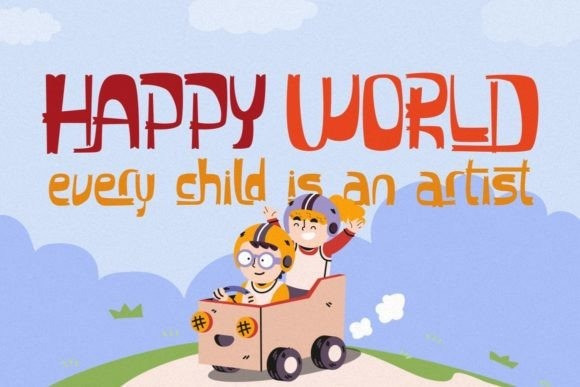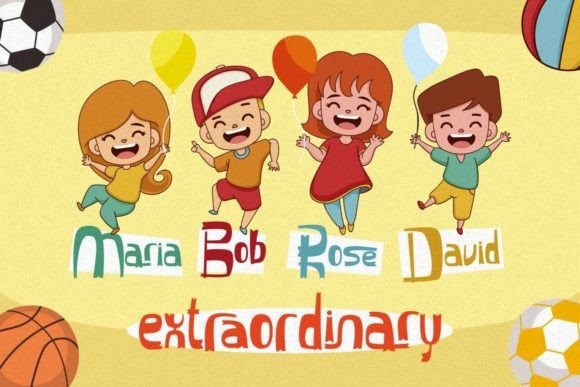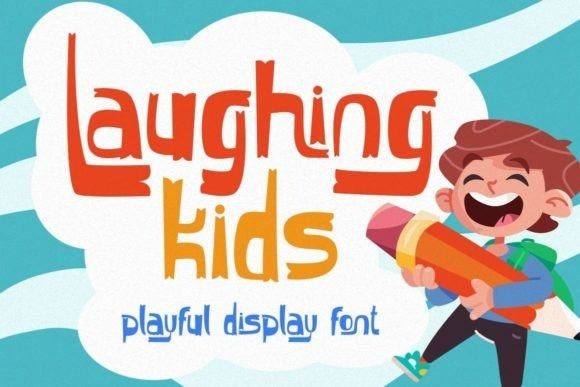
Laughing Kids Font
Laughing Kids Display Font is a brilliant, fun, and aesthetically pleasing display font, perfect for use on cheerful topics. Very suitable for children’s themed designs, especially when combined with bright colors.